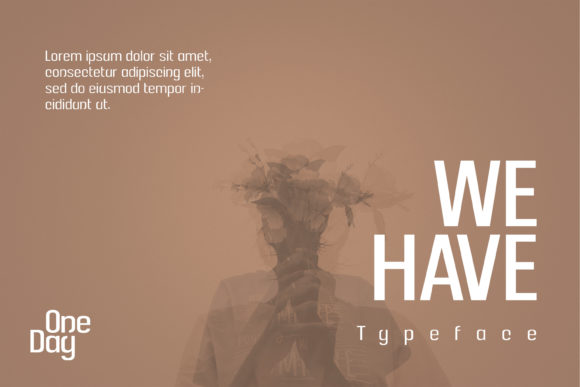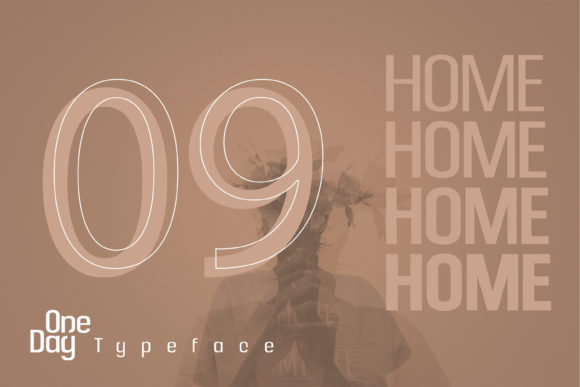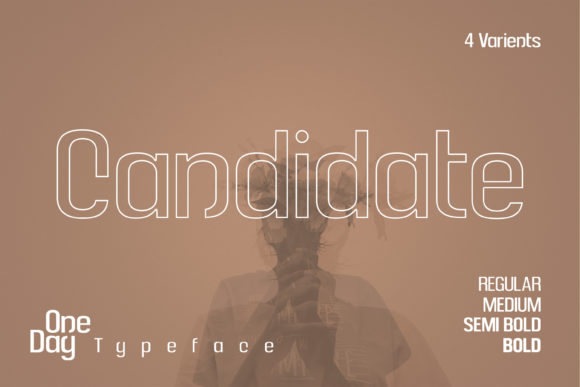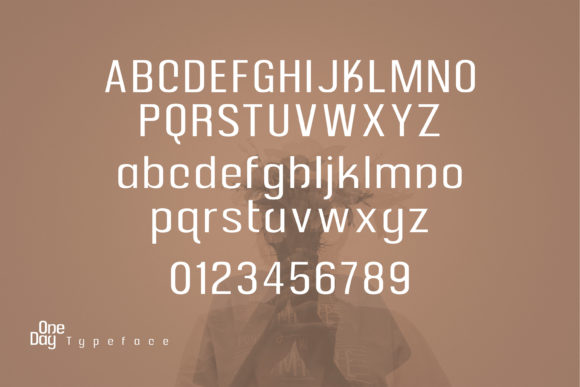
Introduction to One Day Font
One Day is a cool and modern display font.
Key Features of One Day Font
Why Choose One Day Font?
One Day Font offers exceptional quality and versatility, making it a valuable addition to your design toolkit. Whether you’re creating for personal projects or commercial use, One Day Font delivers professional results.